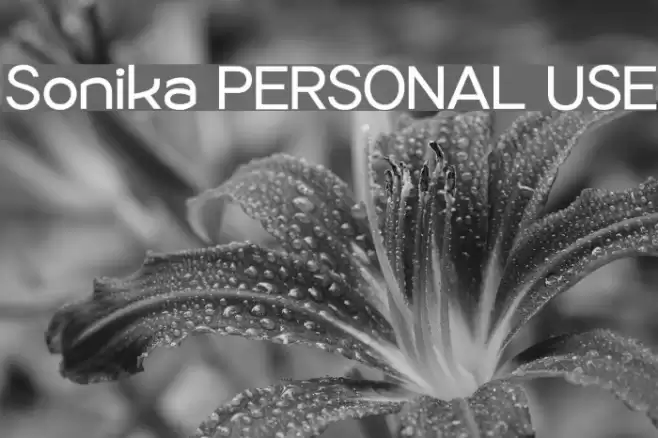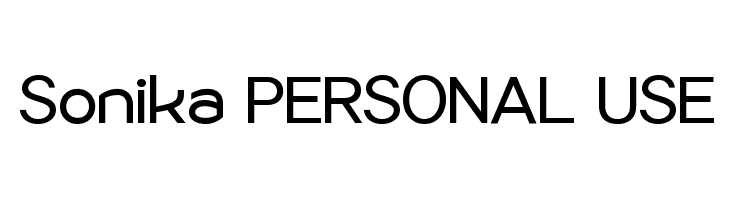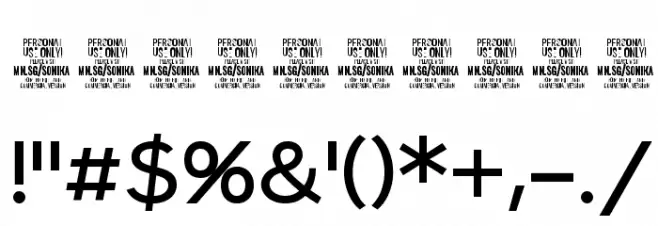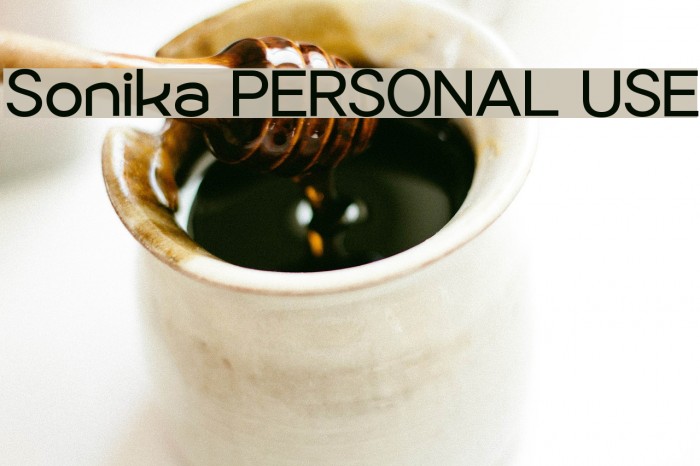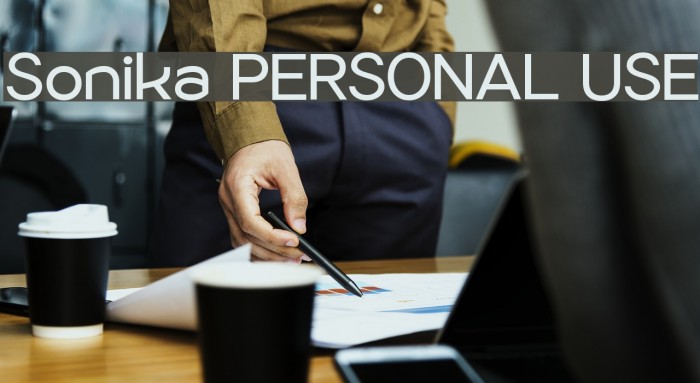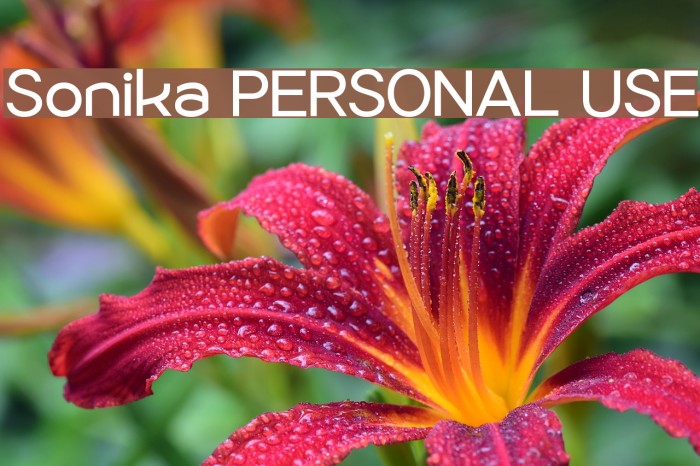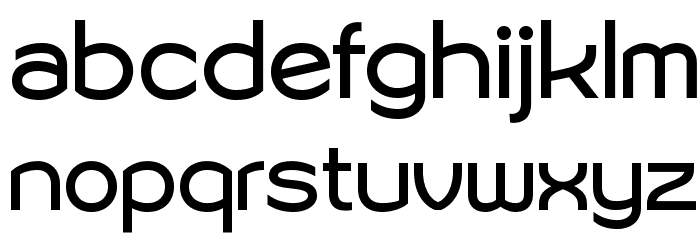
Sonika PERSONAL USE Font
Sonika PERSONAL USE Description
This font features a clean and modern sans-serif design with a geometric structure. The uppercase letters are bold and well-defined, providing a strong presence. The lowercase letters maintain a consistent style, with rounded edges that add a touch of softness to the overall appearance. The numerals are clear and easy to read, making them suitable for various applications. Special characters are included, maintaining the font's cohesive look. The uniformity in stroke width gives it a balanced and professional appearance, ideal for contemporary design projects.
A modern, geometric sans-serif font with a clean and bold appearance from Uncategorized fonts.
- Proposed Projects: Ideal for branding, advertising, web design, and editorial projects where a modern and professional look is desired.
- Use Case: Headlines, Logos, Web design